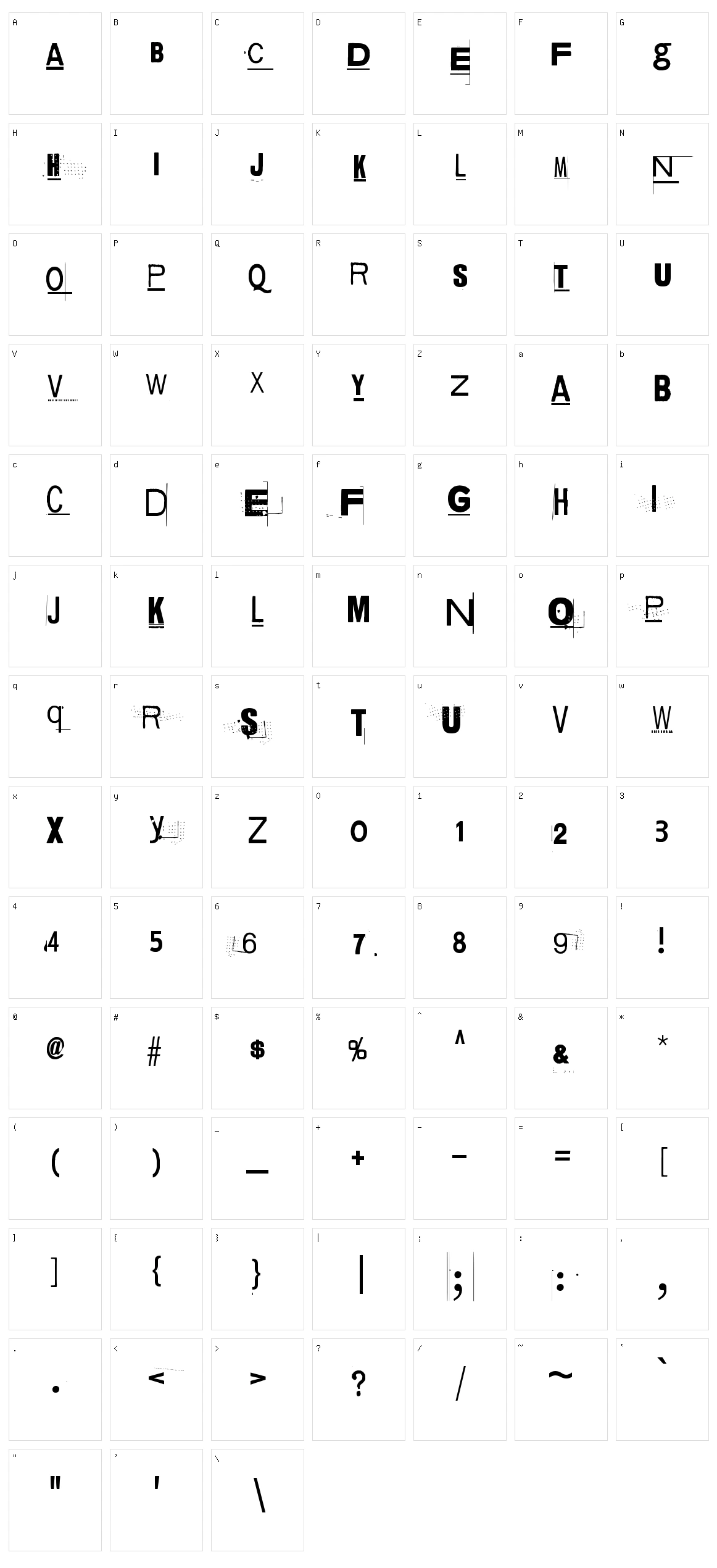
The free font Overconsumption is carefully designed by junkohanhero, showcasing a thoughtful balance of creativity and usability and falls under the Distorted font style. When you download the ZIP file, it contains only 848.39 KB of font files, making it lightweight and quick to download. Please review the license details below to understand permitted usage and distribution rights. If license information is not available, we recommend using this font for personal projects only or contacting the author directly for commercial usage permissions.